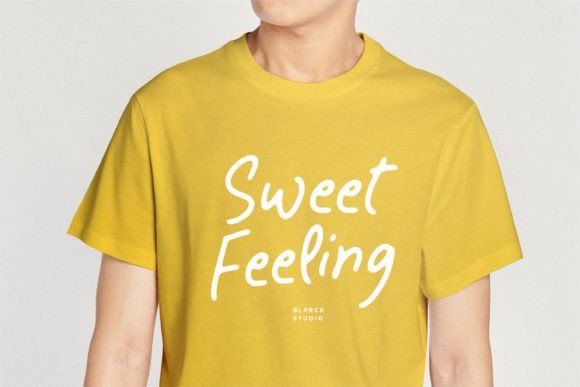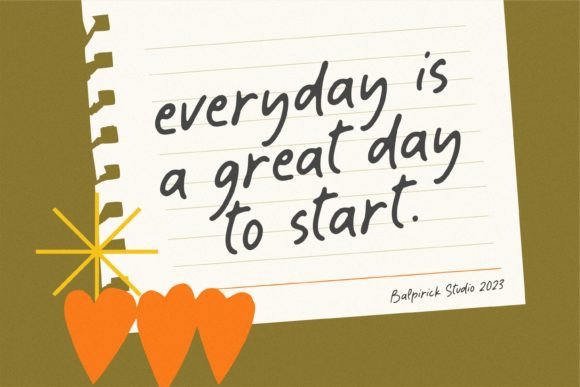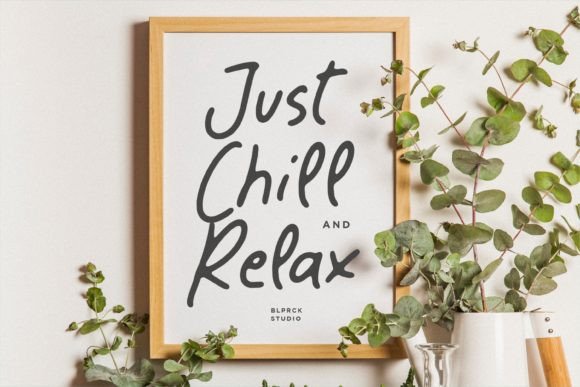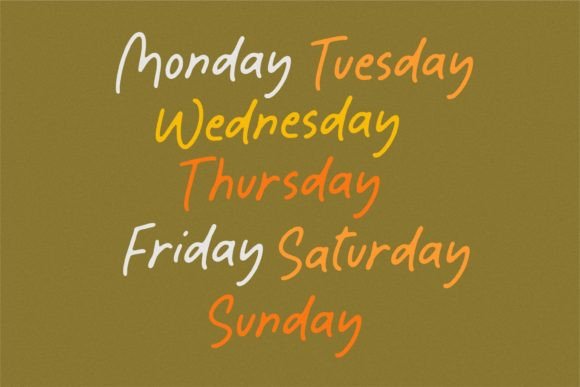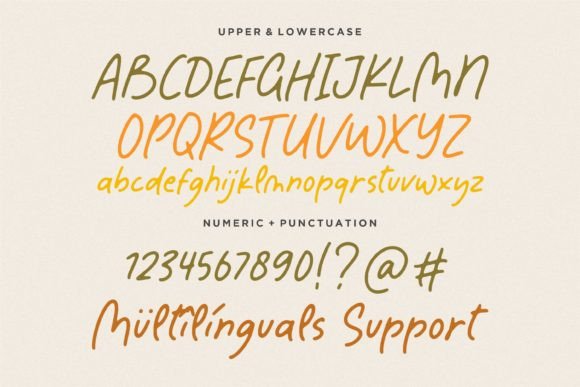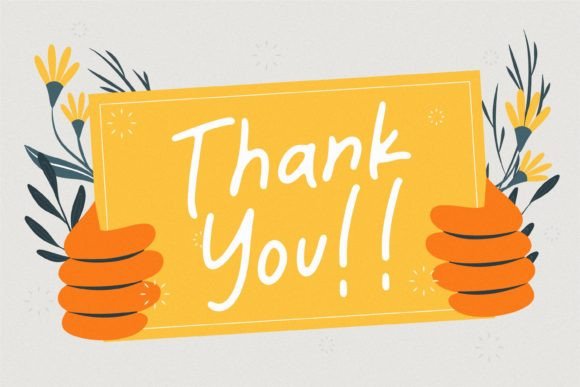
Fabulous Sunday Font: Elevate Your Designs with a Personal Touch
Are you tired of using the same old fonts in your design projects? Do you want to add a personal touch that sets your work apart from the rest? Look no further than the Fabulous Sunday Font, a beautiful handwritten font that’s perfect for designers, crafters, and anyone looking to add a unique flair to their creations.
Handwritten fonts have a way of adding a personal touch to any design project. They evoke a sense of warmth, friendliness, and approachability that’s hard to replicate with more formal fonts. And Fabulous Sunday Font is no exception. With its natural, organic feel and unique character, this font is sure to make your designs stand out.
What Makes Fabulous Sunday Font So Special?
Crafted with care and attention to detail, Fabulous Sunday Font is an incredibly versatile font that can be used for a range of design projects, including logos, branding, invitations, and more. Its modern, handwritten style gives it a unique character that’s sure to make an impact. Whether you’re designing a logo for a new business or creating an invitation for a special event, Fabulous Sunday Font is the perfect choice.
Key Features of Fabulous Sunday Font
- Handwritten style: Fabulous Sunday Font has a natural, organic feel that’s perfect for adding a personal touch to your designs.
- Unique character: This font has a distinctive style that’s sure to make your designs stand out.
- Versatile: Fabulous Sunday Font can be used for a range of design projects, from logos and branding to invitations and more.
- Easy to read: Despite its handwritten style, Fabulous Sunday Font is incredibly easy to read, making it perfect for body text and headlines.
How to Use Fabulous Sunday Font in Your Designs
So, how can you use Fabulous Sunday Font in your designs? The possibilities are endless! Here are a few ideas to get you started:
- Logos and branding: Use Fabulous Sunday Font to create a unique and memorable logo for your business or brand.
- Invitations and events: Add a personal touch to your invitations and event materials with Fabulous Sunday Font.
- Social media graphics: Use Fabulous Sunday Font to create eye-catching social media graphics that stand out from the crowd.
- Packaging and labels: Add a touch of personality to your packaging and labels with Fabulous Sunday Font.
Tips for Getting the Most Out of Fabulous Sunday Font
To get the most out of Fabulous Sunday Font, here are a few tips to keep in mind:
- Experiment with different sizes and colors: Fabulous Sunday Font looks great in a range of sizes and colors, so don’t be afraid to experiment and find the perfect combination for your design.
- Pair it with other fonts: Fabulous Sunday Font pairs well with a range of other fonts, so try combining it with a bold font for headlines or a clean font for body text.
- Use it consistently: To create a cohesive look, use Fabulous Sunday Font consistently throughout your design.
In conclusion, Fabulous Sunday Font is a beautiful handwritten font that’s perfect for designers, crafters, and anyone looking to add a personal touch to their creations. With its natural, organic feel and unique character, this font is sure to make your designs stand out. Whether you’re designing a logo, creating an invitation, or simply looking for a new font to add to your collection, Fabulous Sunday Font is a great choice. So why not give it a try and see the difference it can make in your designs?